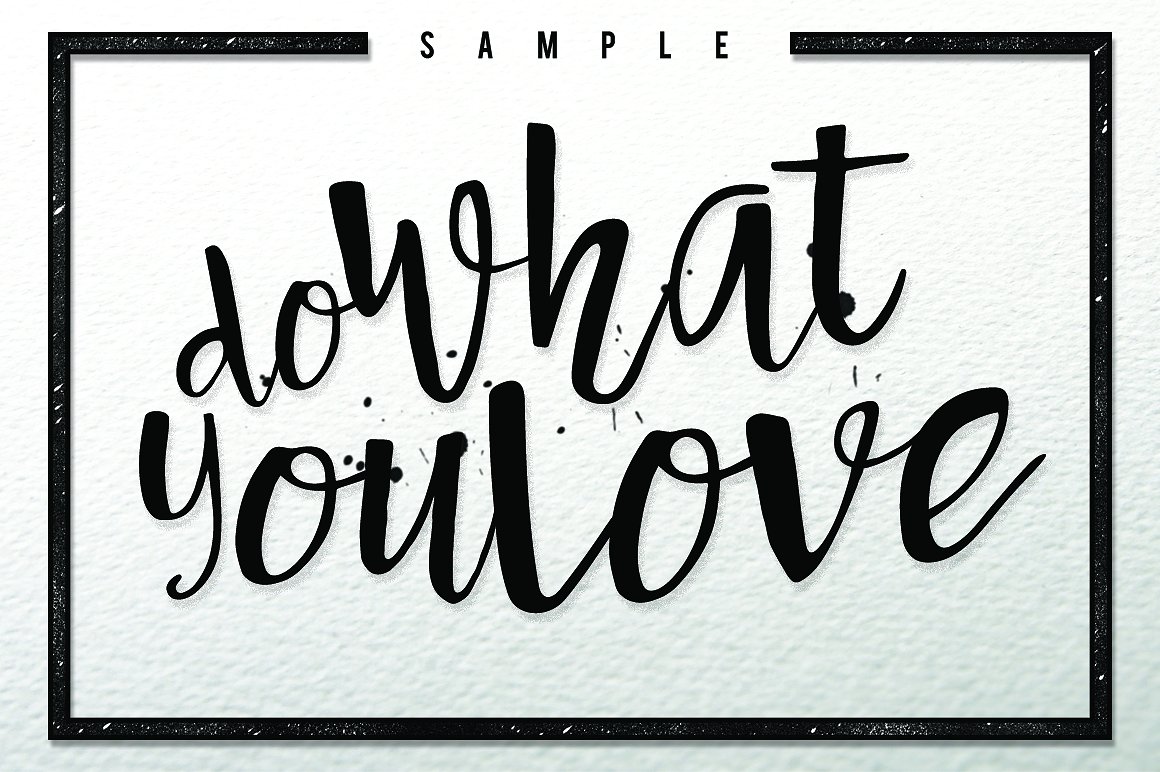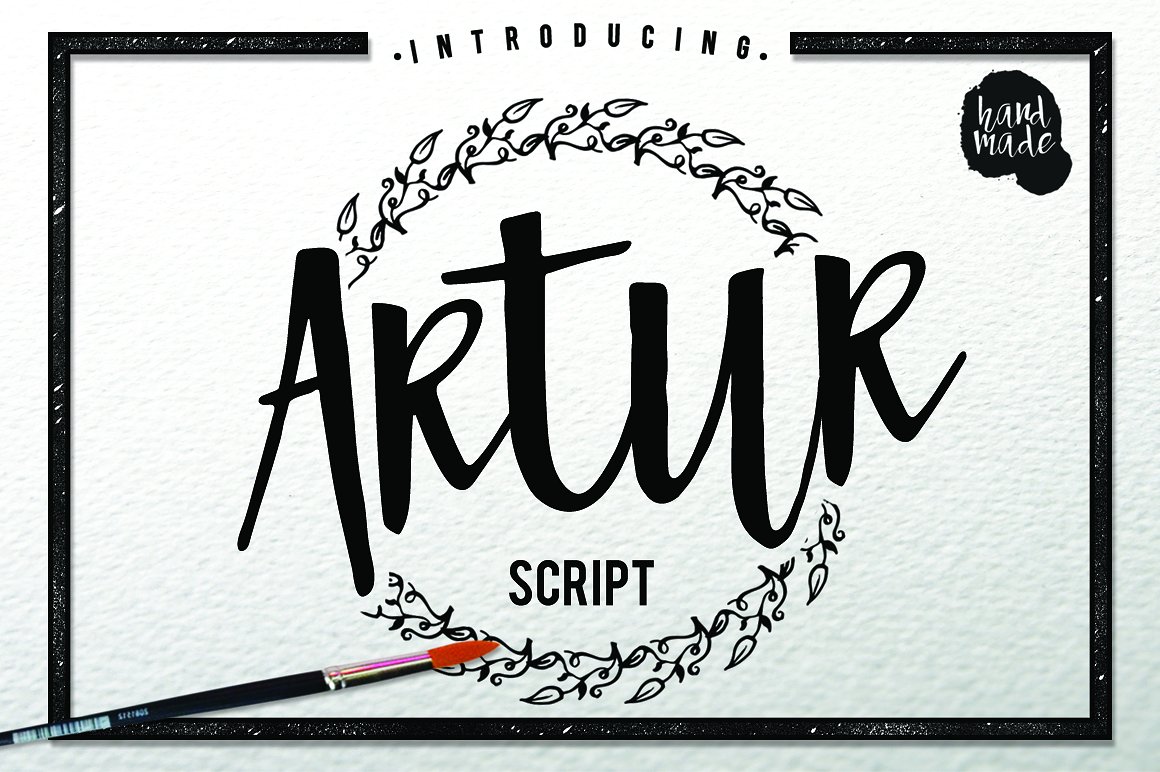
Artur Script Font
Artur Script package is perfect for making design: posters, a variety of quotes, header, logo design, blog headers, all kinds of covers, T-shirts, mugs, etc.
| Classification: | Brush Fonts, Handwritten Fonts |